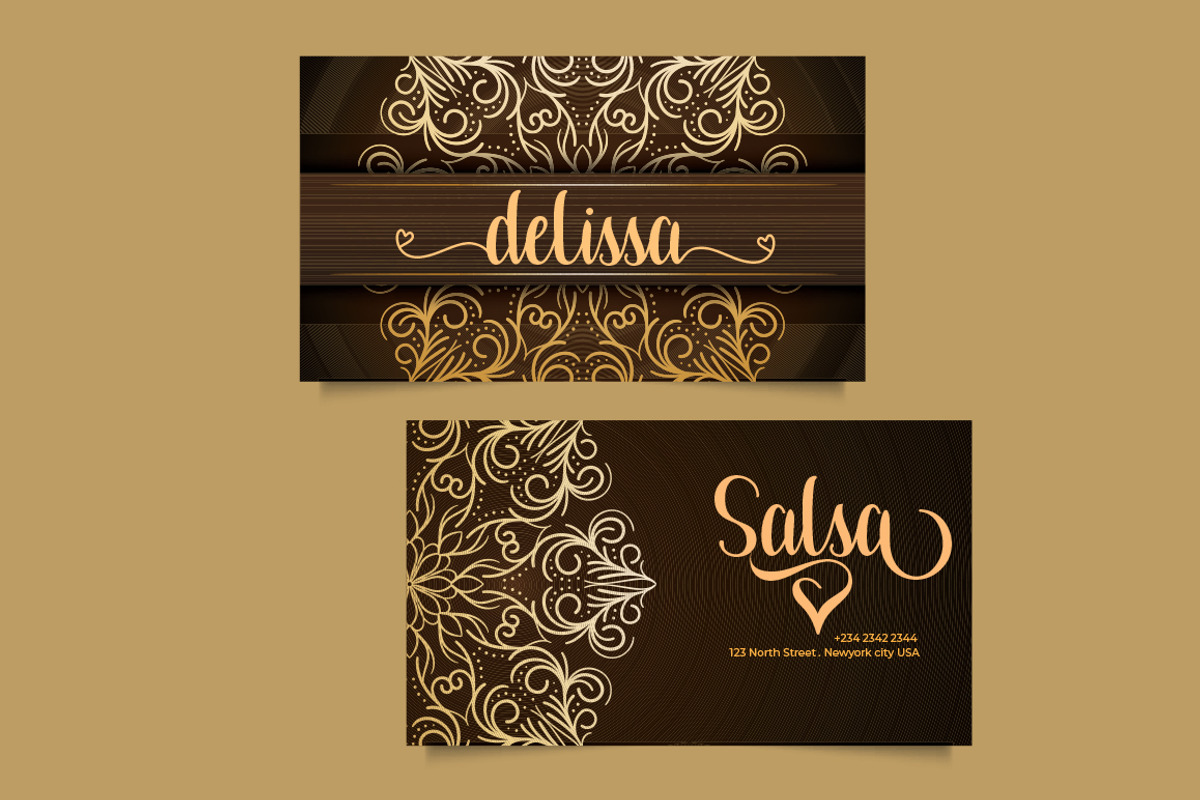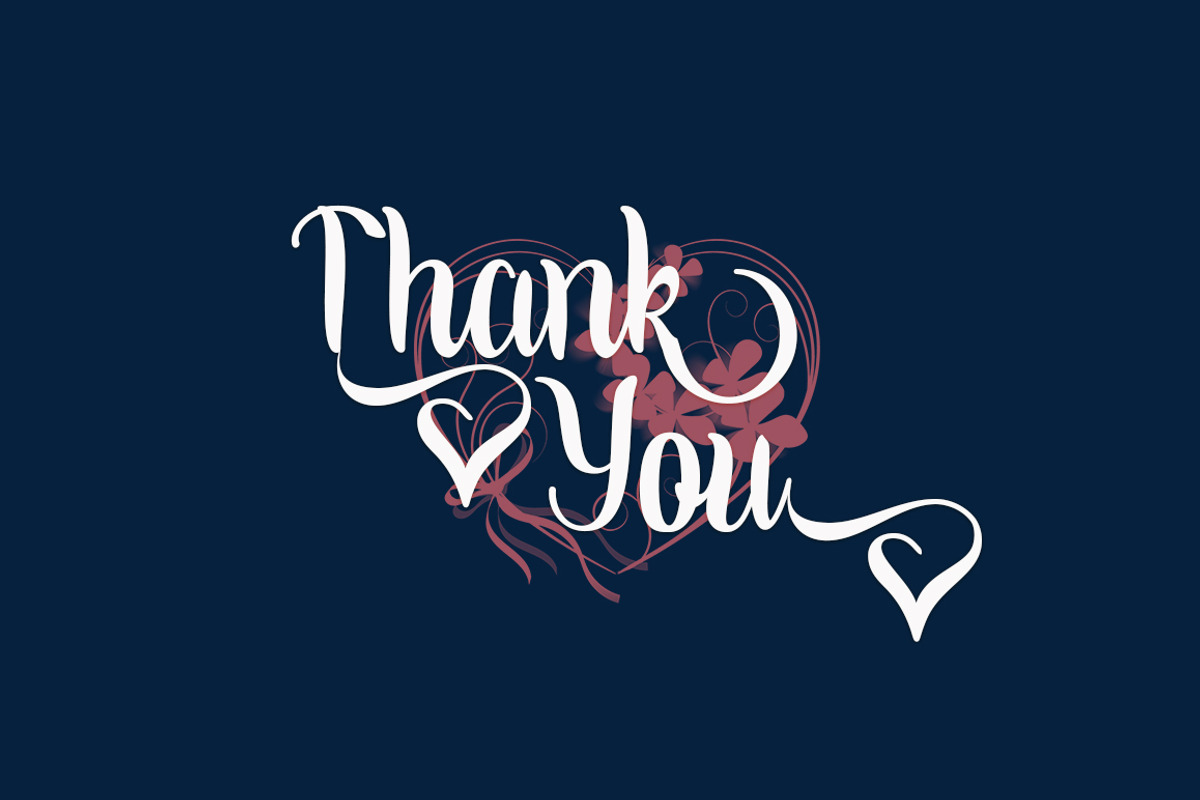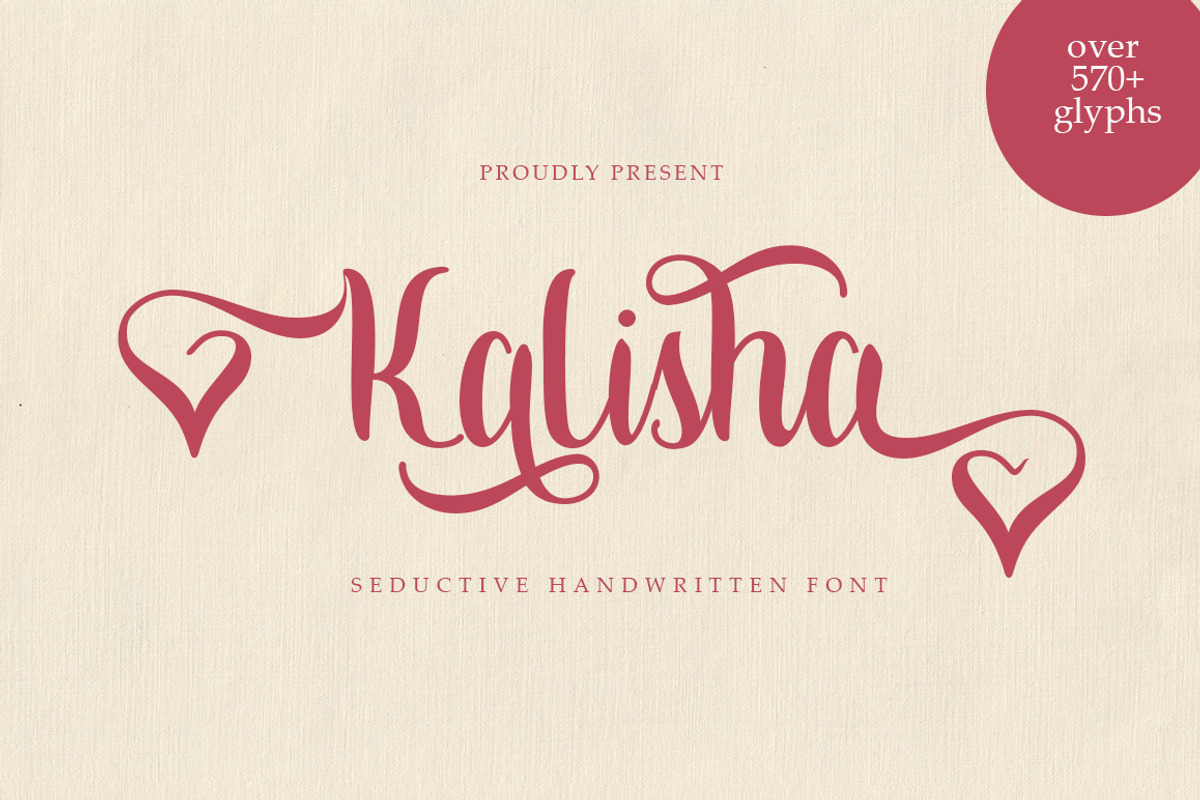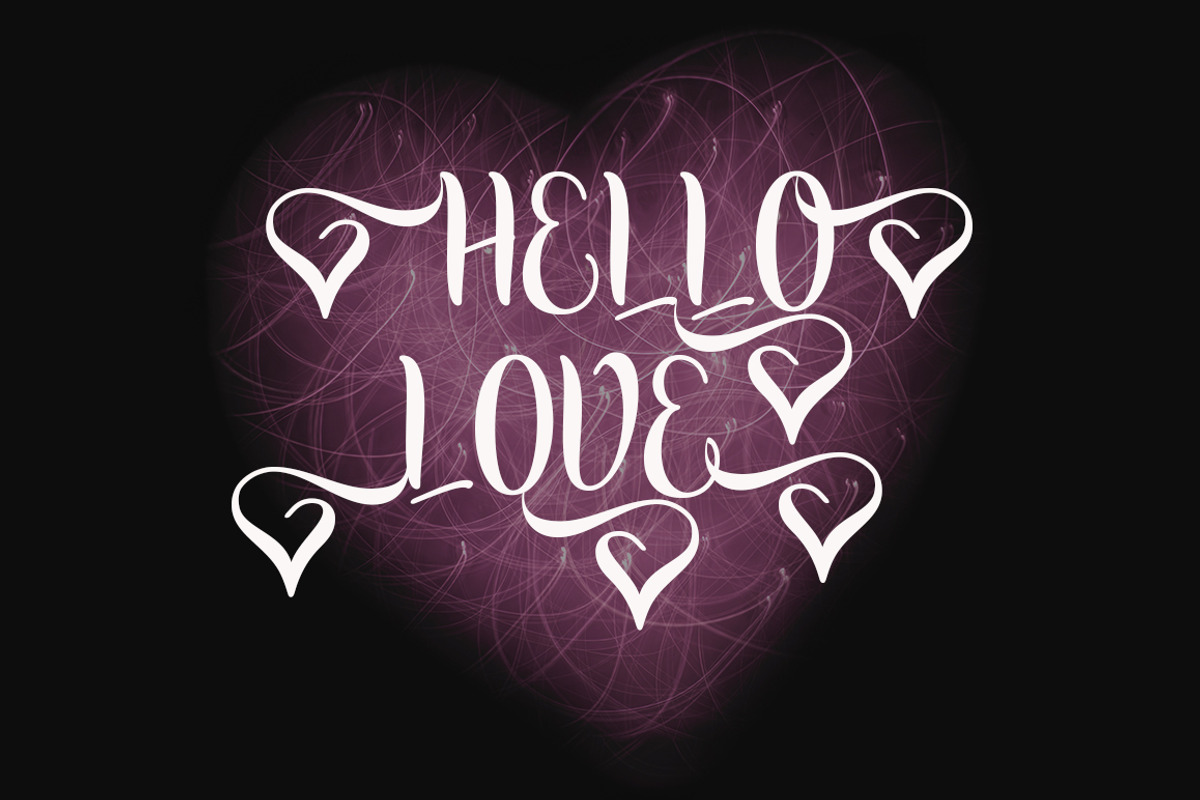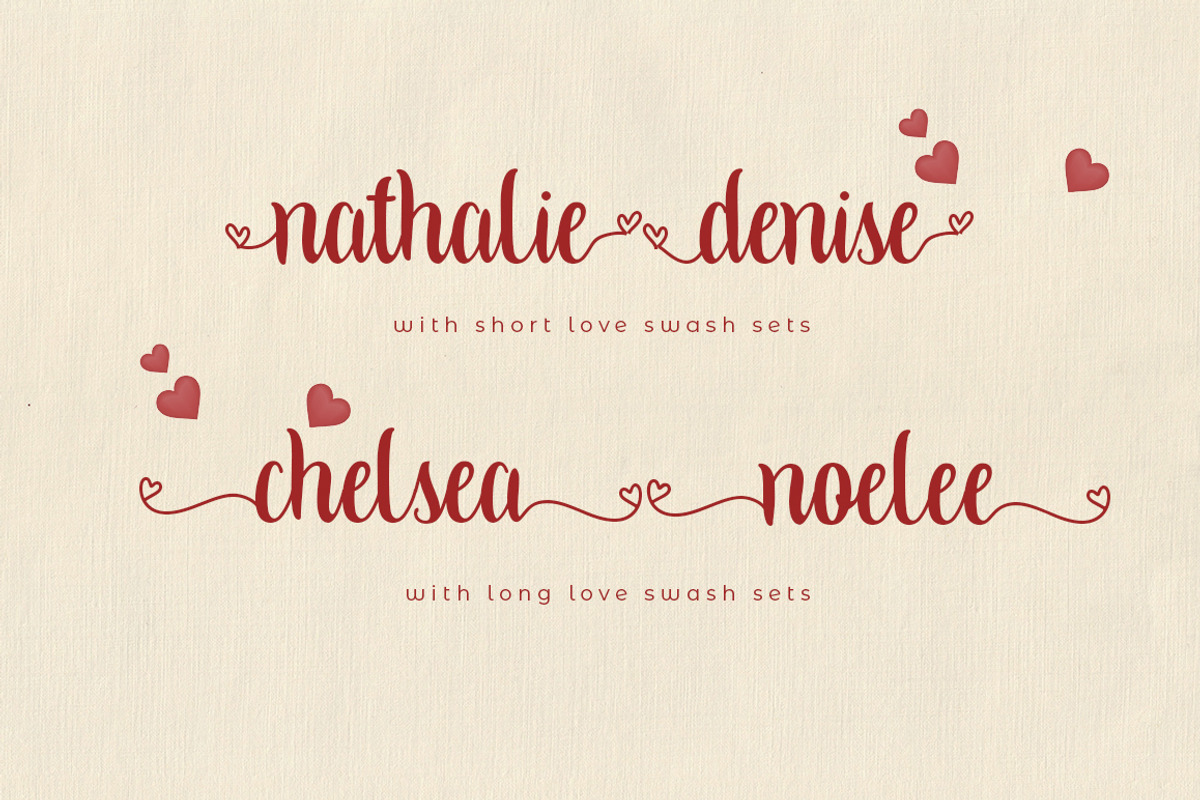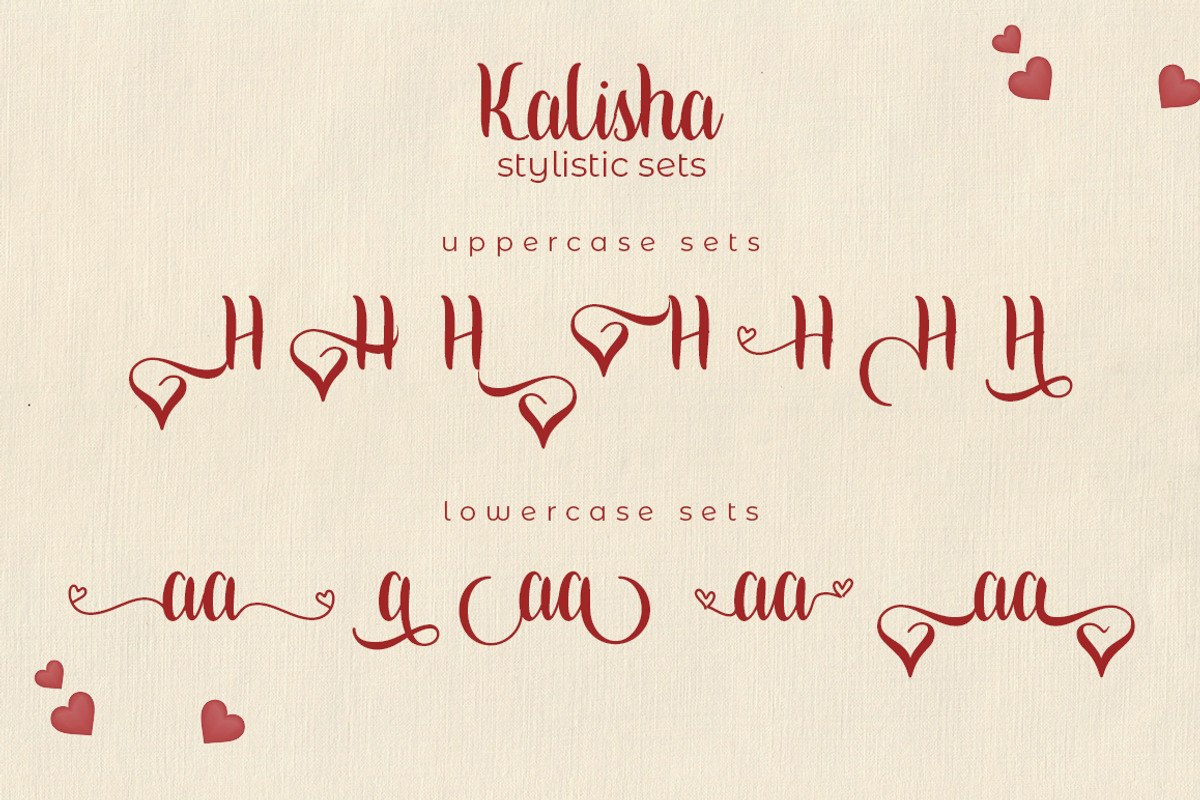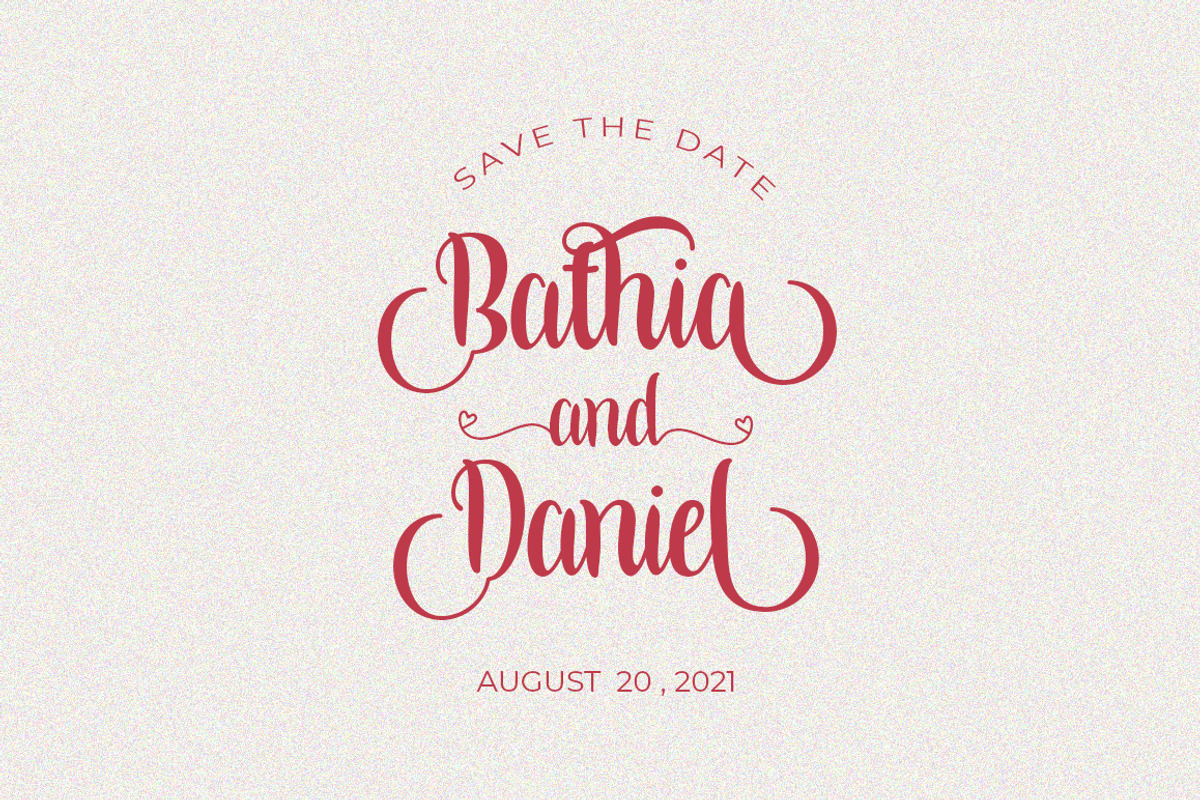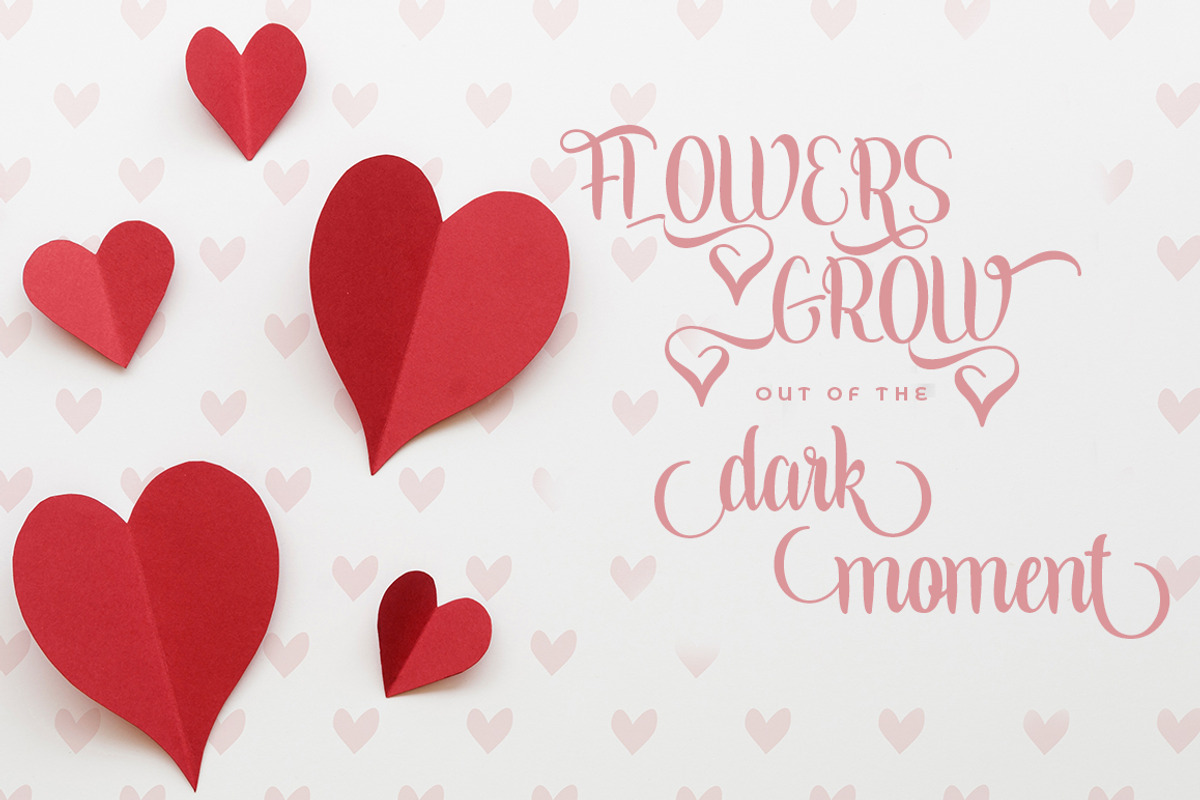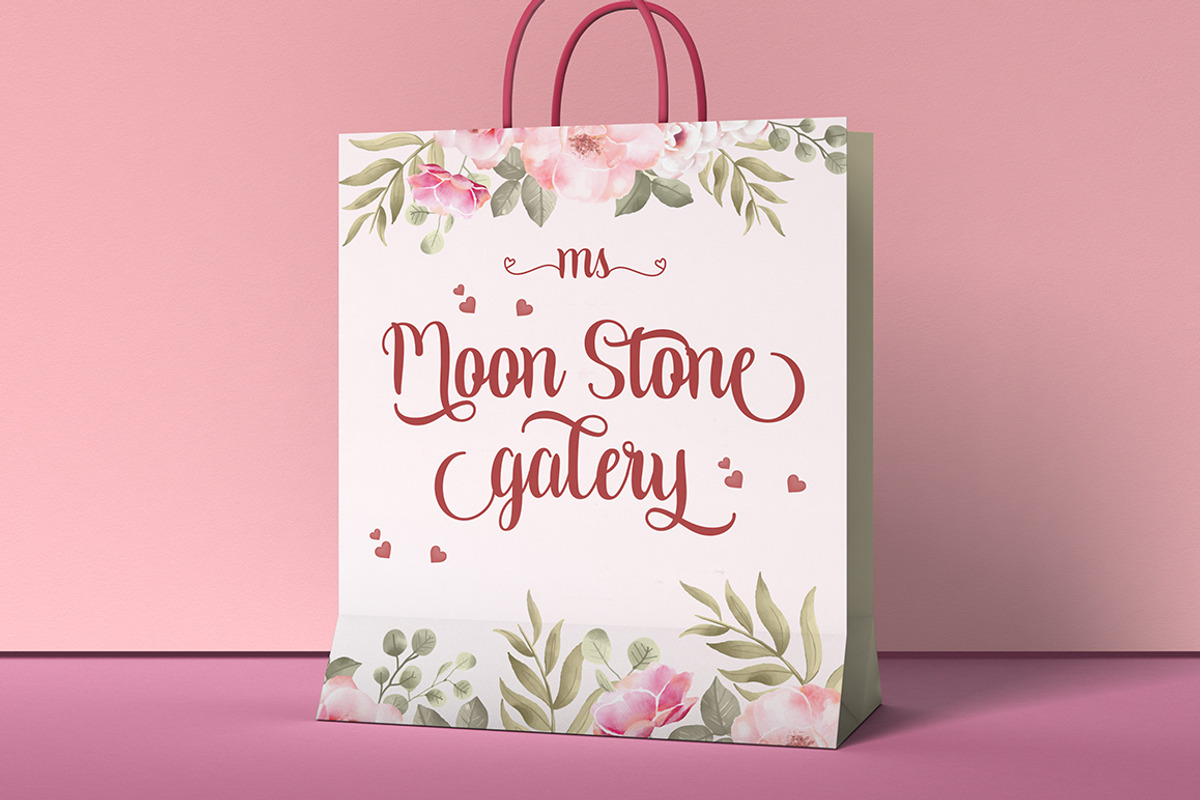
Kalisha script
Kalisha Script was built 570+ glyphs, with OpenType features and includes many beginning and ending swashes, numbers, punctuation, and it also supports other languages.
You can toggle between both the regular and swashes font to get a handwritten, professional look.